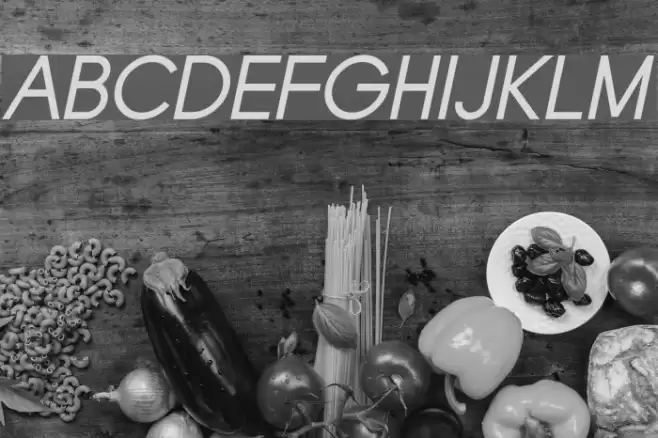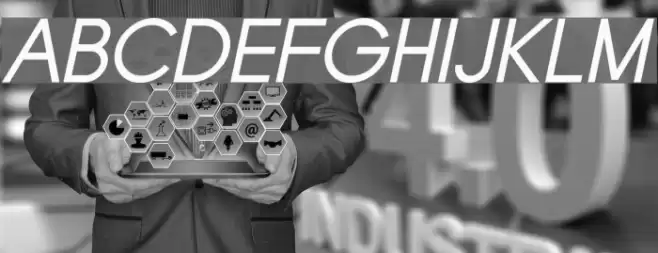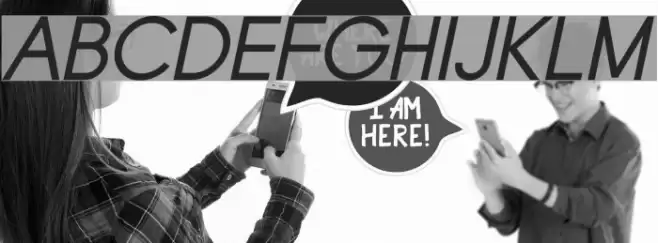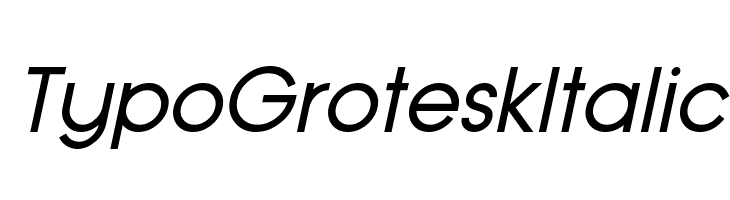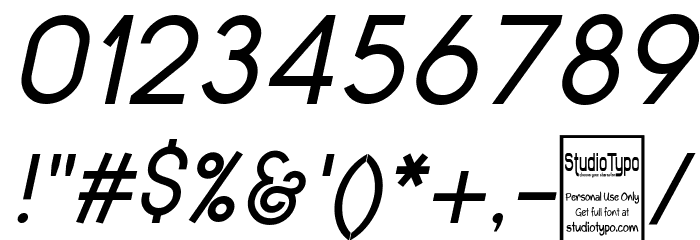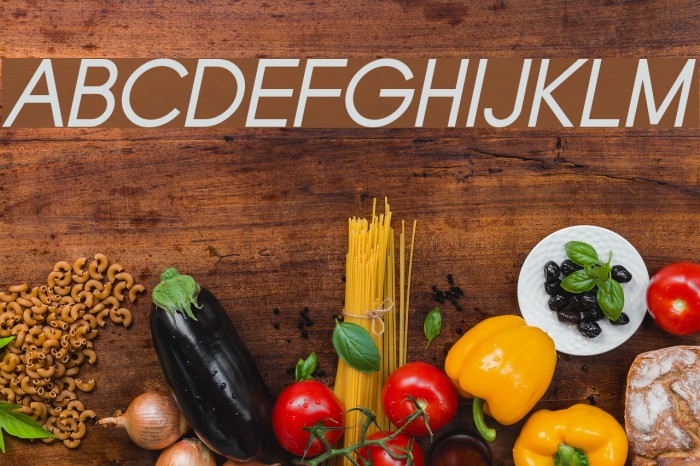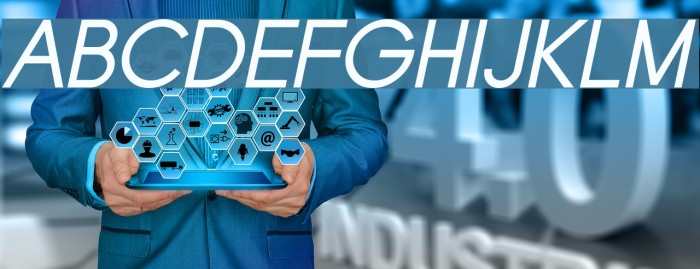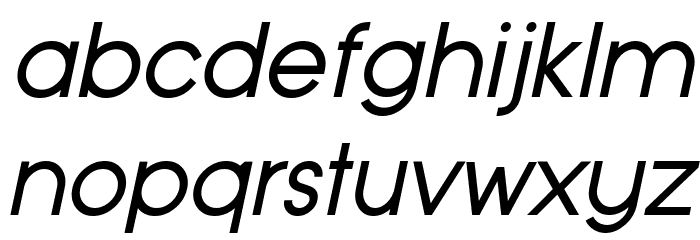
Typo Grotesk Italic Font
Typo Grotesk Italic Description
This font features a sleek, modern design with a distinct italic slant, giving it a dynamic and forward-moving appearance. The characters are clean and sans-serif, emphasizing simplicity and readability. The uniform stroke width across all characters provides a consistent look, while the slight curvature in letters like 'a', 'g', and 'y' adds a touch of elegance. The numerals are clear and well-proportioned, making them easy to read. Special characters are included, maintaining the same stylistic approach, ensuring versatility for various design needs.
A modern, italic sans-serif font with clean lines and a dynamic slant from Uncategorized fonts.